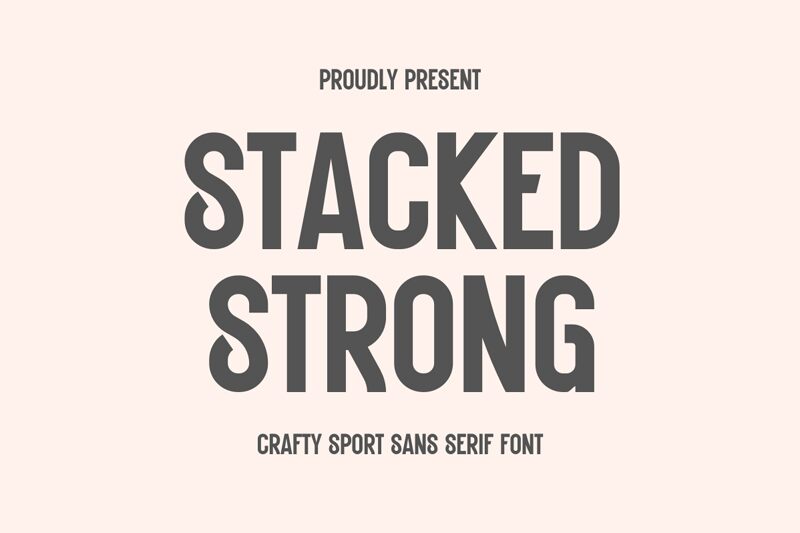
Stacked Strong font family by Muhammad Yafinuha is a free font family that artfully pairs classic geometric style with a modern, clean aesthetic. This is a sans-serif font that includes 2 font styles featuring a versatile design for contemporary applications. This font family was crafted with an emphasis on clarity in mind. With the confident, impactful look, the font is suitable for branding and various design fields.
The font provides surprising flexibility which makes it eligible for many use cases on both the personal and professional levels. Use it for the text in your website, mobile application, user interface, application, game, or software. This is also a great choice for printed mediums such as newspapers, books, magazines, branding material, posters, and others. Whether you’re working on a digital or printed design, this modern sans-serif font guarantees a pleasant reading experience.